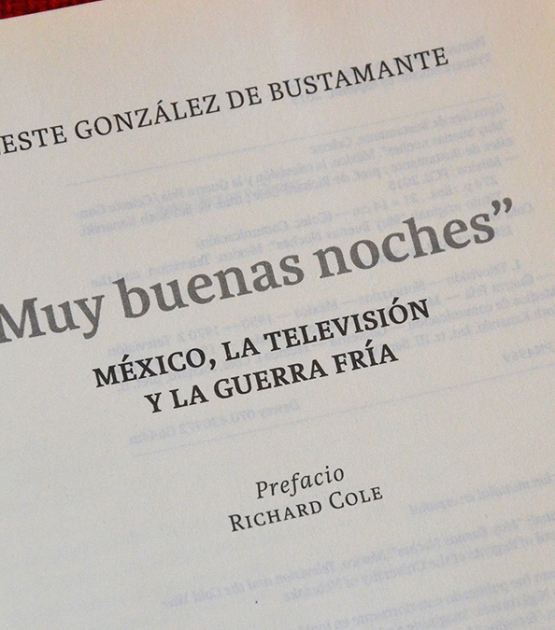
Karmina
Designed by José Scaglione Veronika Burian. Released 2007.
Karmina is a serif built to withstand the worst printing conditions: low quality papers, high printing speed with web presses, and variations in the ink level of the printing press. The cumulative result of its features grants Karmina outstanding legibility and economy, perfect for extended reading in editorials and newspapers.
Karmina
A highly legible and economic typeface, perfect for extended reading in editorials and newspapers.
Karmina is a text typeface created by José Scaglione and Veronika Burian mainly for pocket books and budget editions. It was built to withstand the worst printing conditions: low quality papers, high printing speed with web presses, and variations in the ink level of the printing press. The more opportunity for printing to go wrong, the more Karmina does to make it right — the right shapes, right sturdiness, and the right tone with which to approach the reader.
Some of Karmina’s most representative features are the rather large serifs intended to work perfectly in small reproduction sizes, the sharpness of the shapes, some calligraphic influences, and the large yet graceful inktraps in the acute connections. Structurally, Karmina combines a large x-height with relatively compressed letterforms to optimise space-saving. The cumulative result of these features grants Karmina outstanding legibility and economy, and the italic weights capitalise on the inktraps and calligraphic styling to easily set text apart from the roman.